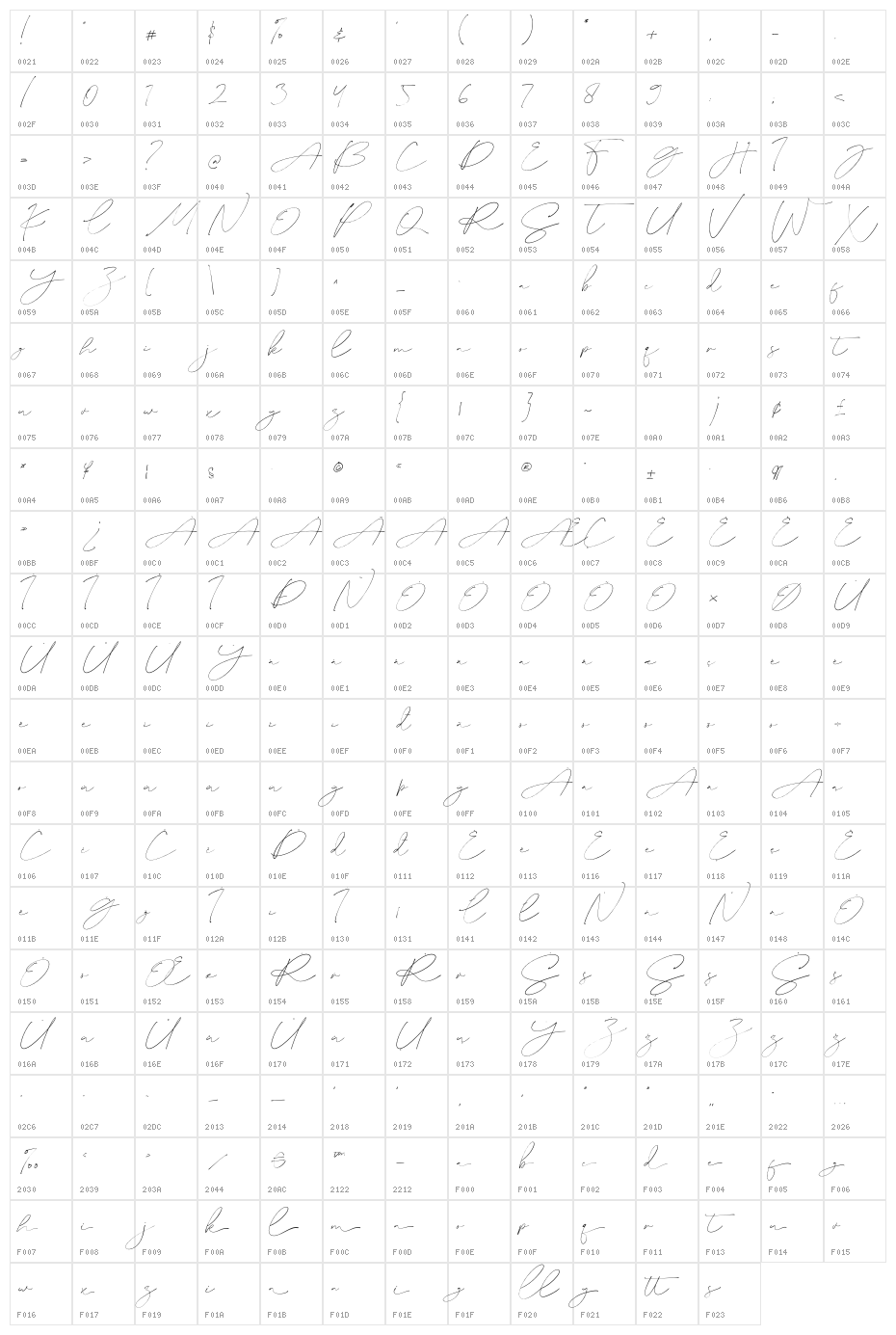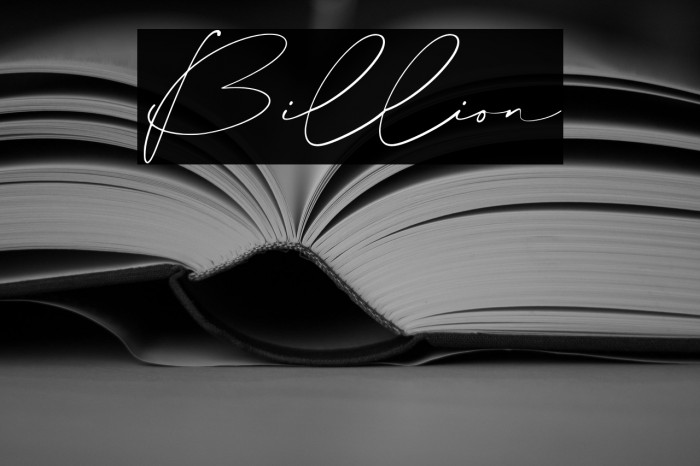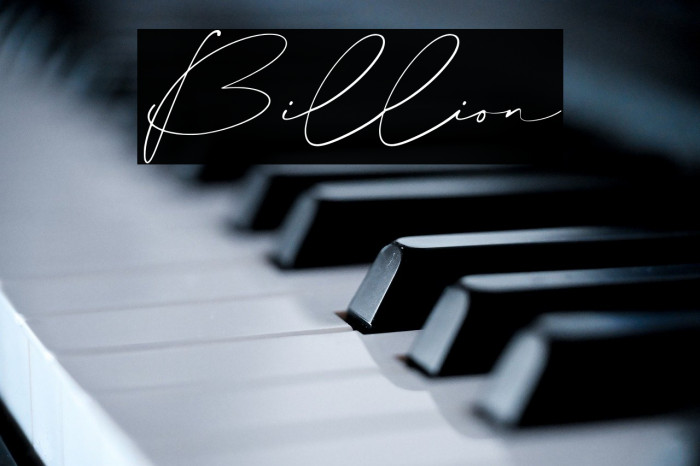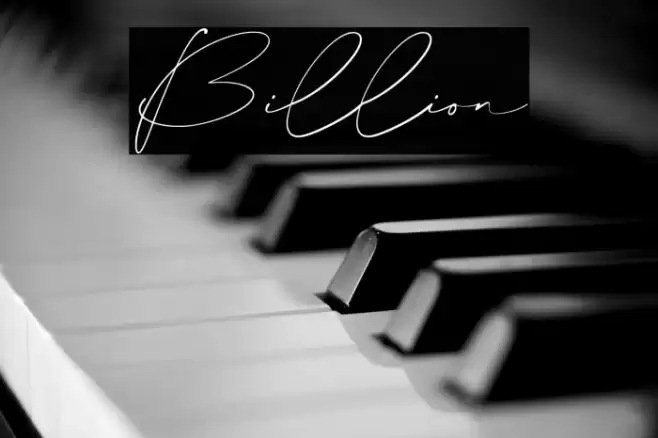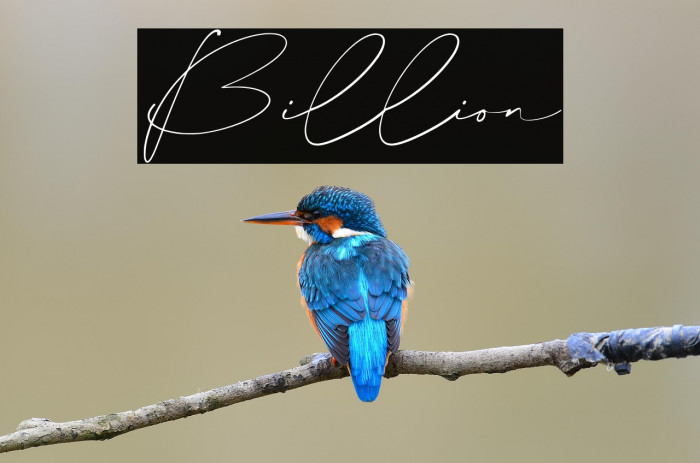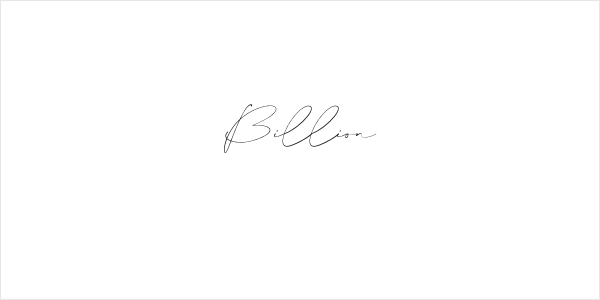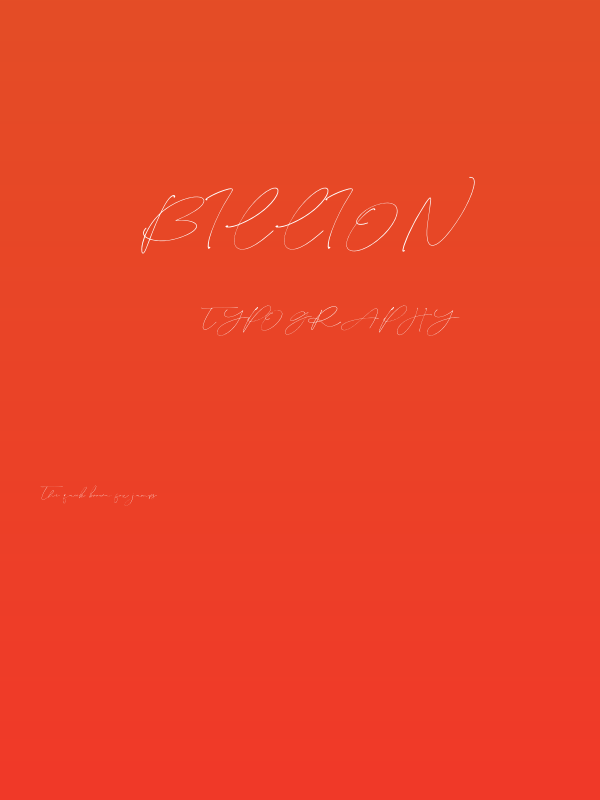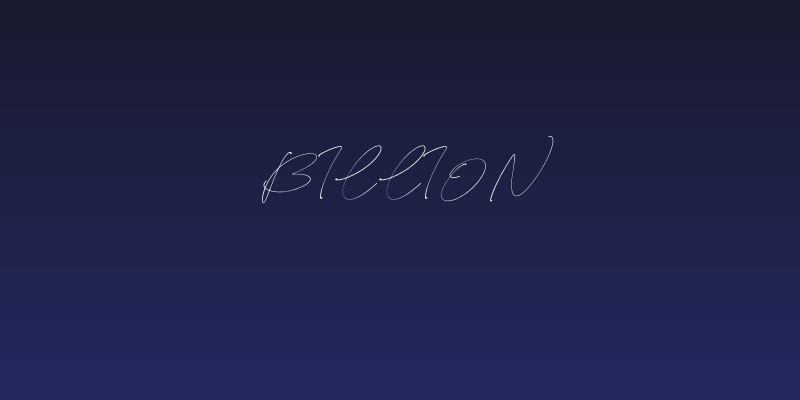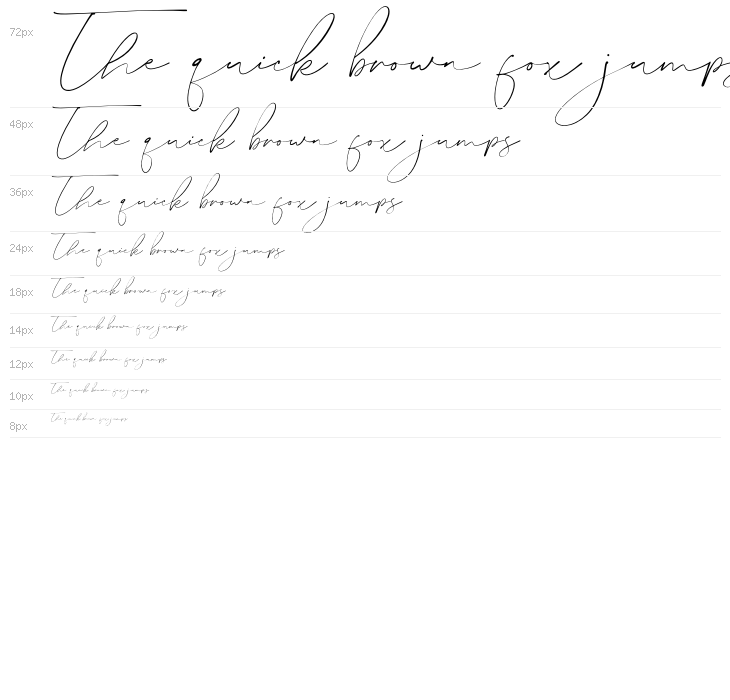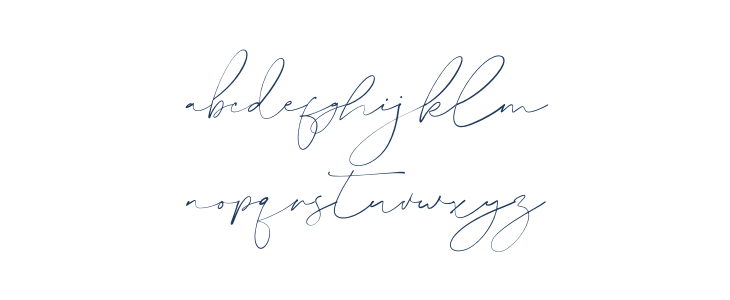
Billion Font
Billion Description
This font exhibits a graceful and flowing script style, characterized by its elegant and fluid letterforms. The uppercase letters are tall and slender, with a slight slant that adds a dynamic feel. The lowercase letters are more rounded and connected, creating a seamless and cursive appearance. The numerals maintain the same fluidity, ensuring consistency throughout the typeface. The special characters are crafted with the same attention to detail, making them blend effortlessly with the rest of the font. This font's delicate strokes and airy design make it ideal for projects that require a touch of sophistication and elegance.
| Use Case | Logos, Invitations, Decorative Headings |
| Proposed Projects | Ideal for wedding invitations, elegant branding, personal signatures, and decorative headings. |